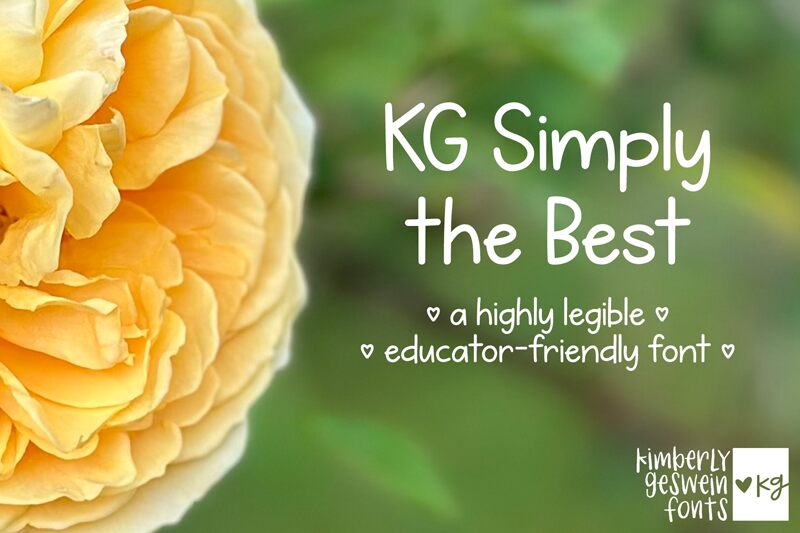
KG Simply the Best
KG Simply the Best font by Kimberly Geswein captures the laid-back spirit of handwriting with a handcrafted, modern aesthetic and approachable mood. Letters playfully bounce along the baseline in uneven heights and uniquely rounded edges that display an effortlessly joyful personality. This free handwritten font has an informal yet friendly appearance that gives it a superb universal appeal.
Beyond expressive logo designs, projects for advertising, greeting cards, stationery, branding projects, product packaging, book covers, magazines, and headlines are all perfect matches for this pretty font. Social media posts are also streams of neat ideas to use your new free addition from Kimberly Geswein’s remarkable collection of fonts in.